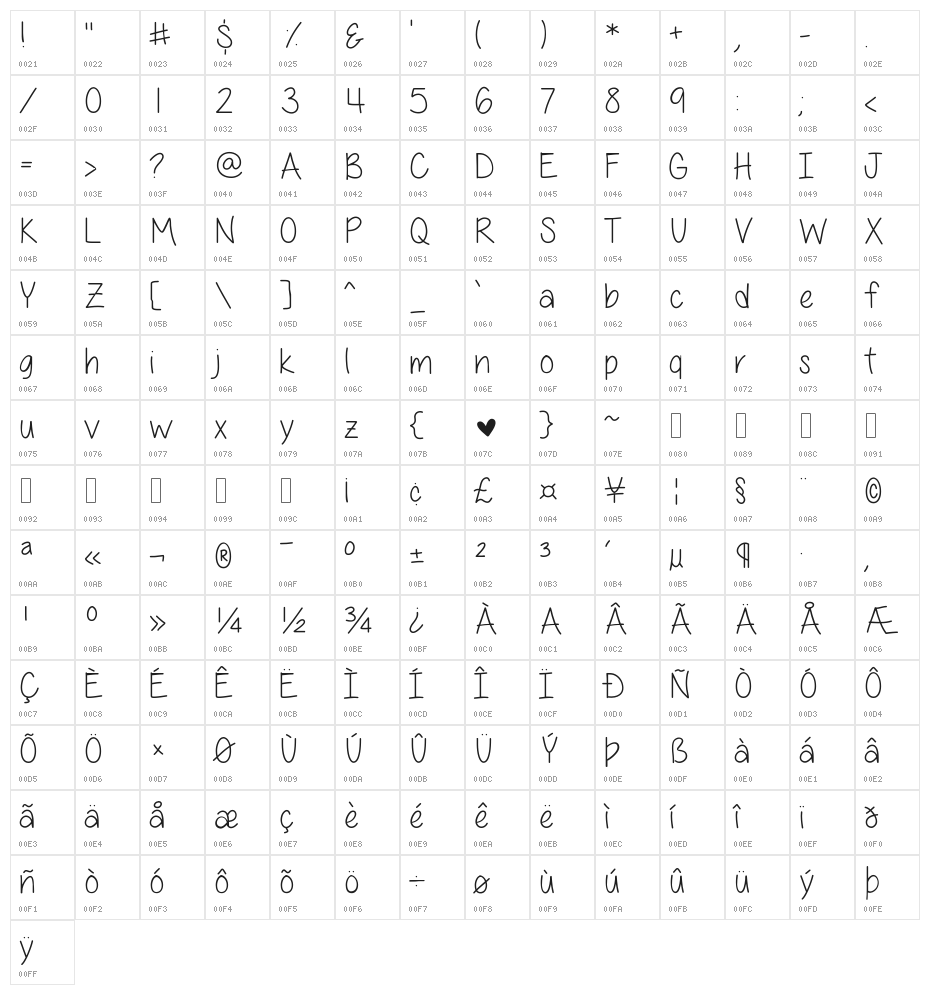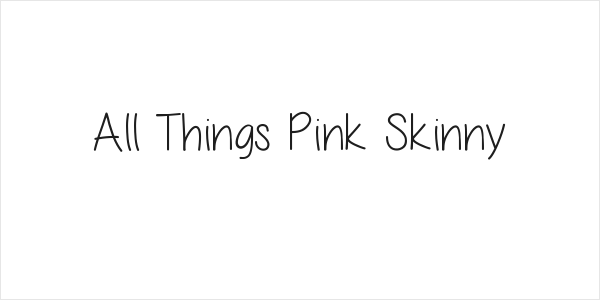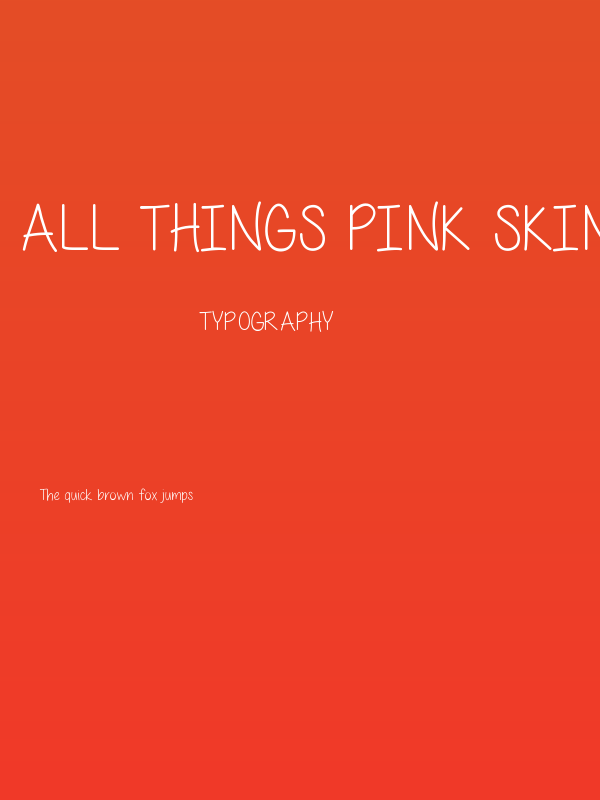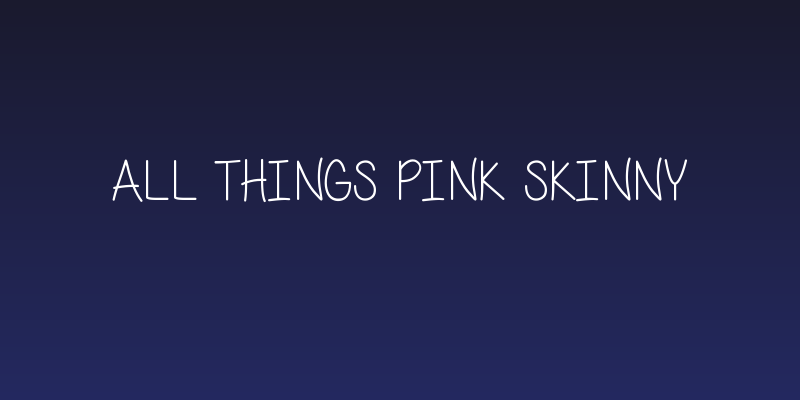
All Things Pink Skinny Font
All Things Pink Skinny Description
This font features a playful and casual handwritten style with a slightly irregular baseline, giving it a friendly and approachable appearance. The characters are tall and narrow, with rounded edges that add to its informal charm. The uppercase and lowercase letters maintain a consistent height, while the numerals and special characters blend seamlessly with the overall design. The strokes are uniform in thickness, contributing to a clean and legible look. This font is versatile, suitable for projects that require a personal touch or a relaxed vibe.
| Use Case | Headlines, Informal text, Branding |
| Proposed Projects | Ideal for greeting cards, children's books, casual branding, and social media graphics. |